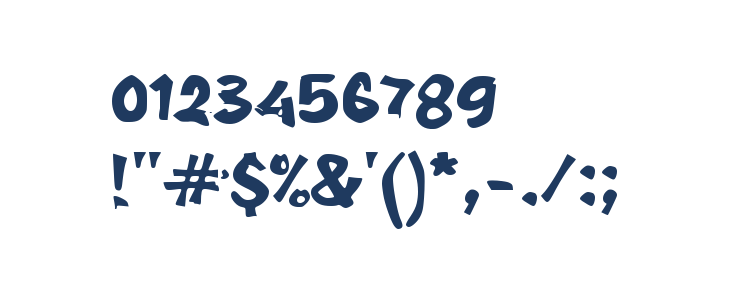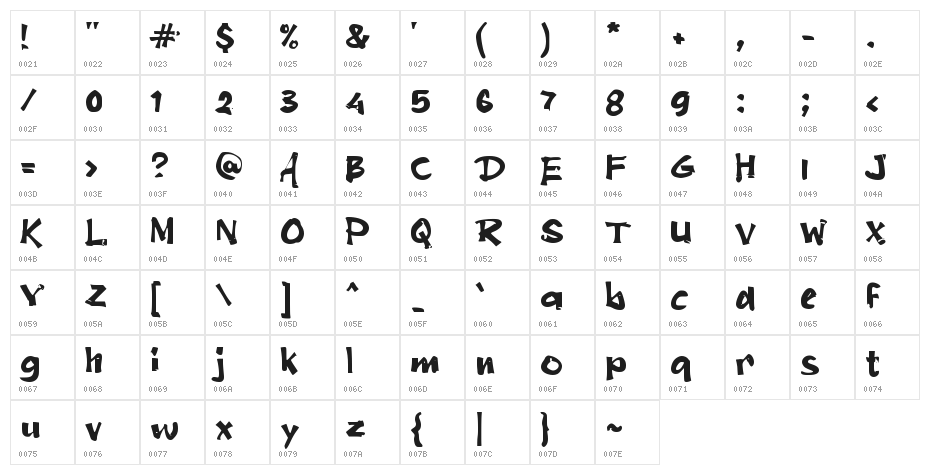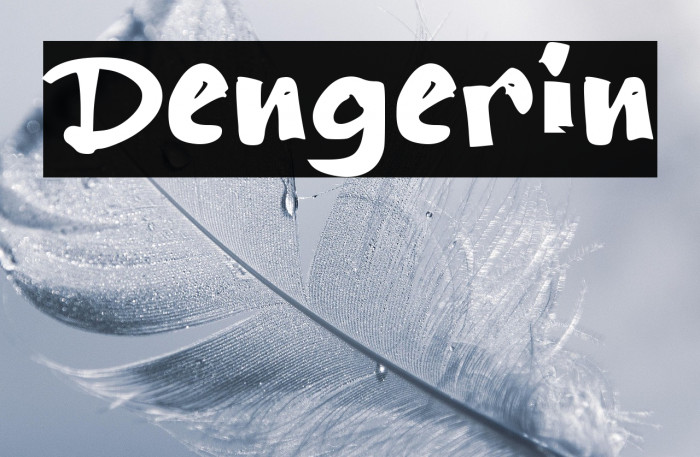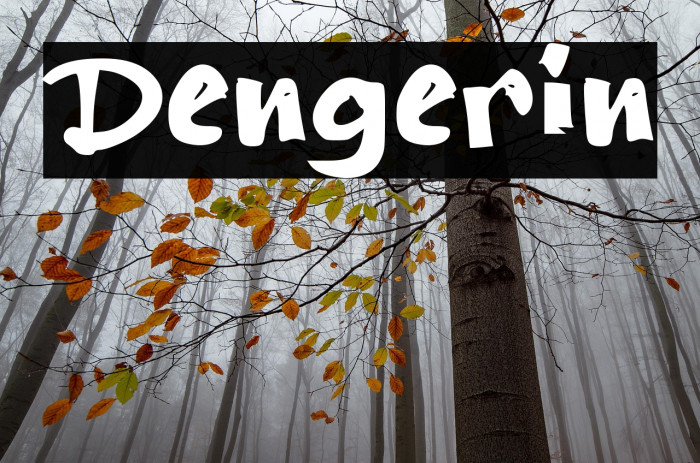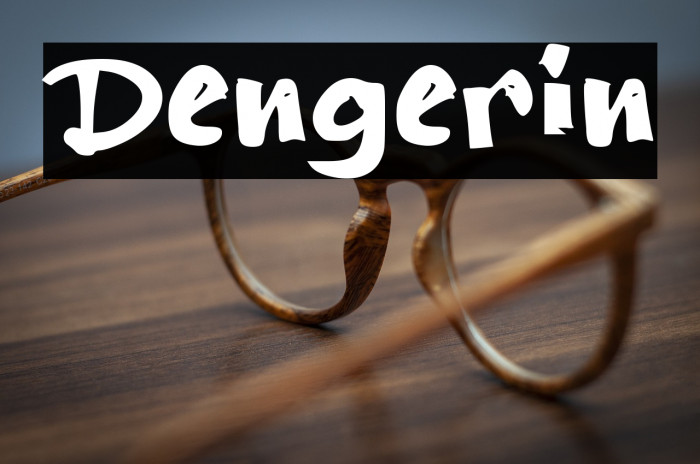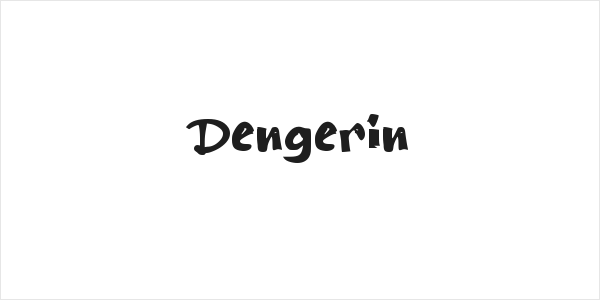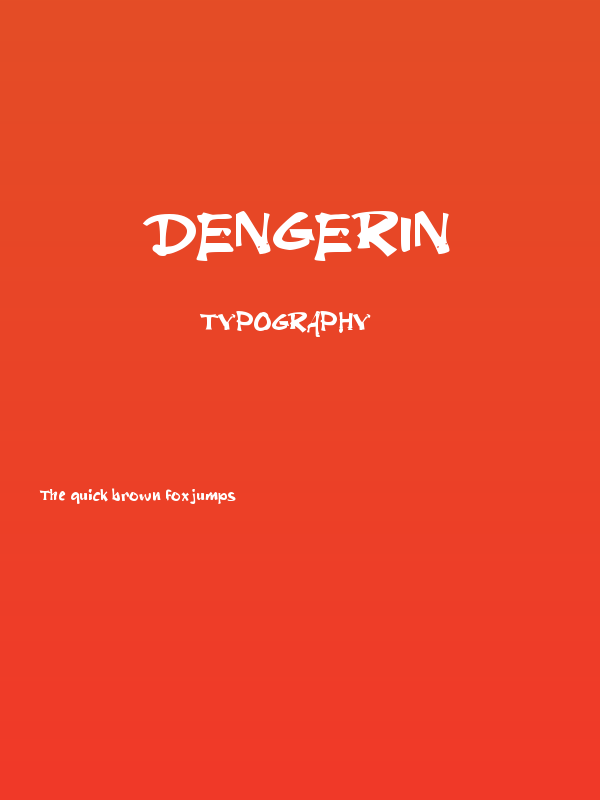
Dengerin Font
Dengerin Description
This font features a bold, playful style with a hand-drawn appearance. The characters are irregular and dynamic, giving a sense of movement and energy. The uppercase and lowercase letters are distinct, with exaggerated curves and varying stroke widths that add to its whimsical charm. The numbers and special characters maintain this lively aesthetic, making the font suitable for creative and informal applications. Its unique style is eye-catching and can add a fun, artistic touch to any design project.
| Proposed Projects | Ideal for children's books, comic strips, playful branding, and creative posters. |